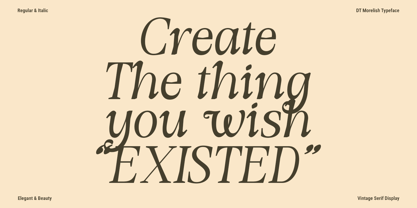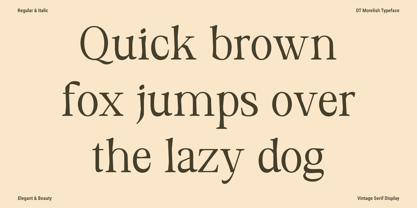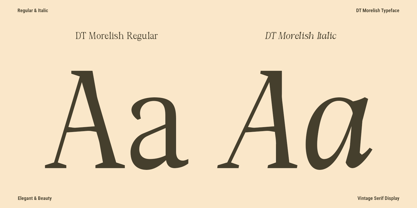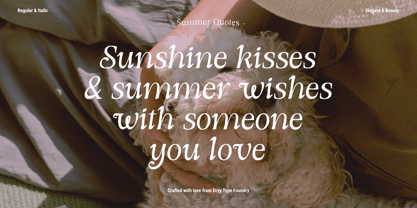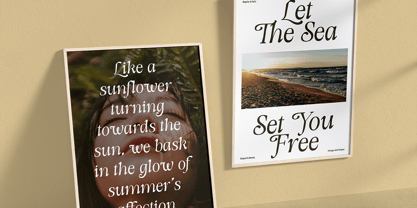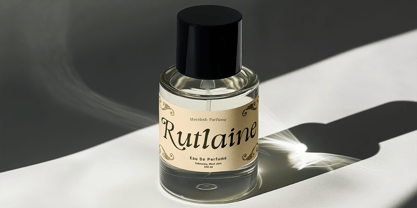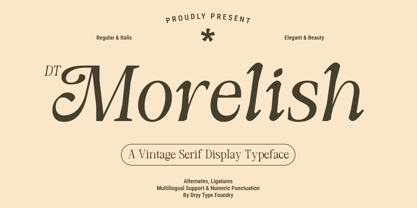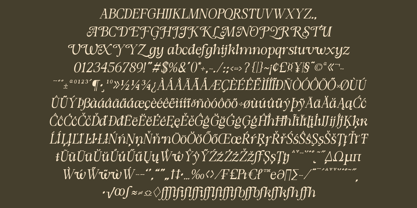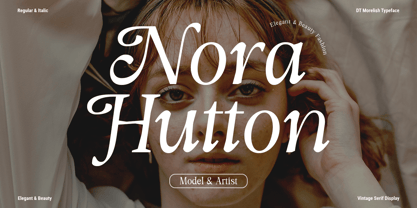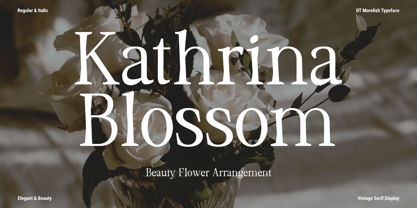
DT Morelish
by Dryy Type
The DT Morelish Font Family was designed by Rian Dryana and published by Dryy Type. DT Morelish contains 2 styles and family package options. More about this family
DT Morelish is an elegant and vintage serif font. Inspired by the shape of a tree, its irregular letterforms are presented in your designs, which can be printed both physically and digitally. Hopefully, using this font in your designs will create unforgettable memories. The font I created is meaningful and highly versatile, suitable for a variety of designs, elevating them to the highest level. Add this font to your favorite creative ideas and see the results!
Features: Uppercase, Lowercase, Numbers, Punctuation, Alternates, Ligatures & Multilingual Support
Designers: Rian Dryana
Foundry: Dryy Type